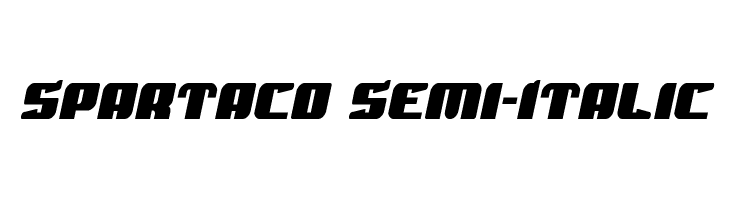
( D.Frohwein - www.aleatoric.de )
A bold, hand-drawn font with a textured, scribble-like appearance.
Bold, italicized, and expanded with a modern, dynamic style.
( Fonts by www.DigitalDreamDesign.net )
A complex, maze-like decorative font with bold geometric patterns.
( Fonts by Creatype Studio )
A playful, bold font with a hand-drawn, whimsical style.
( IviLand - Iván Coello )
A pixelated, retro-style font with a digital, blocky appearance.
A bold, sketch-like font with a three-dimensional, futuristic design.
A bold, italicized font with a modern and dynamic style.
( Fonts by www.DigitalDreamDesign.net )
A bold, pixelated font with a retro video game aesthetic.
A bold, dramatic font with sharp, angular edges and dragon-like motifs.